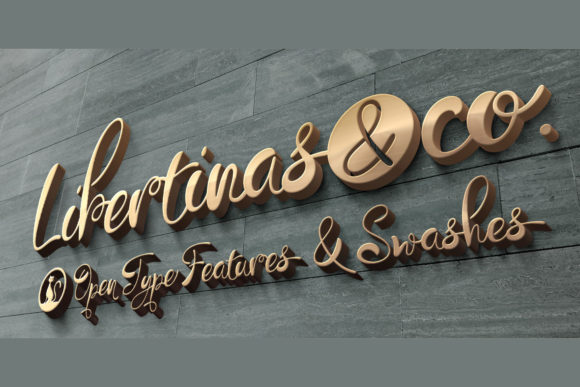
Behold, the Libertinas Co Font - a script font that dances on the page with its casual, elegant, and oh-so-sensual curves. Step into a world of limitless creativity, where your words take on a life of their own, flowing with the grace of a handwritten masterpiece.
With Libertinas Co, your designs will captivate audiences, leaving them spellbound by the beauty of your typography. Its versatility knows no bounds, whether you're crafting stunning titles, eye-catching flyers, thought-provoking publications, or typographic posters that speak volumes.
Immerse yourself in the world of Libertinas Co, where every letter is an expression of art. Its unique character adds a touch of sophistication and allure to any project, making your words shine with a brilliance that commands attention.
This font is more than just a collection of letters; it's a gateway to a world of endless possibilities. Unleash your imagination and let Libertinas Co guide you on a creative odyssey that will leave you breathless. Whether you're a seasoned designer or just starting your typographic journey, this font will elevate your work to new heights.
But wait, there's more! Libertinas Co is PUA encoded, granting you effortless access to a treasure trove of glyphs and swashes. With just a few clicks, you can unlock a world of creative possibilities, adding intricate details and flourishes that will make your designs truly stand out.
So, why settle for ordinary when you can embrace the extraordinary? Choose Libertinas Co, and embark on a creative adventure that will redefine your design horizons. Let your words dance with grace, let your ideas flow with passion, and let your designs captivate hearts.